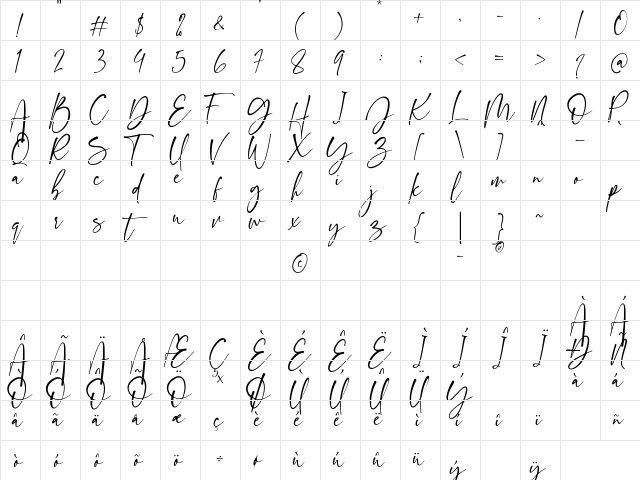
Forestea Script Regular
Design Context for Forestea Script Typeface
Forestea Script flows with the natural rhythm of handwritten lettering, making it ideal for designs that call for warmth and personal expression.
Font Pairing: Combine Forestea Script with a simple geometric sans for maximum contrast — the tension between flowing curves and clean structure is a classic typographic pairing.
Pro Tip: Use Forestea Script for short runs of text — names, titles, or taglines. Extended body copy in script faces tires the eye quickly.